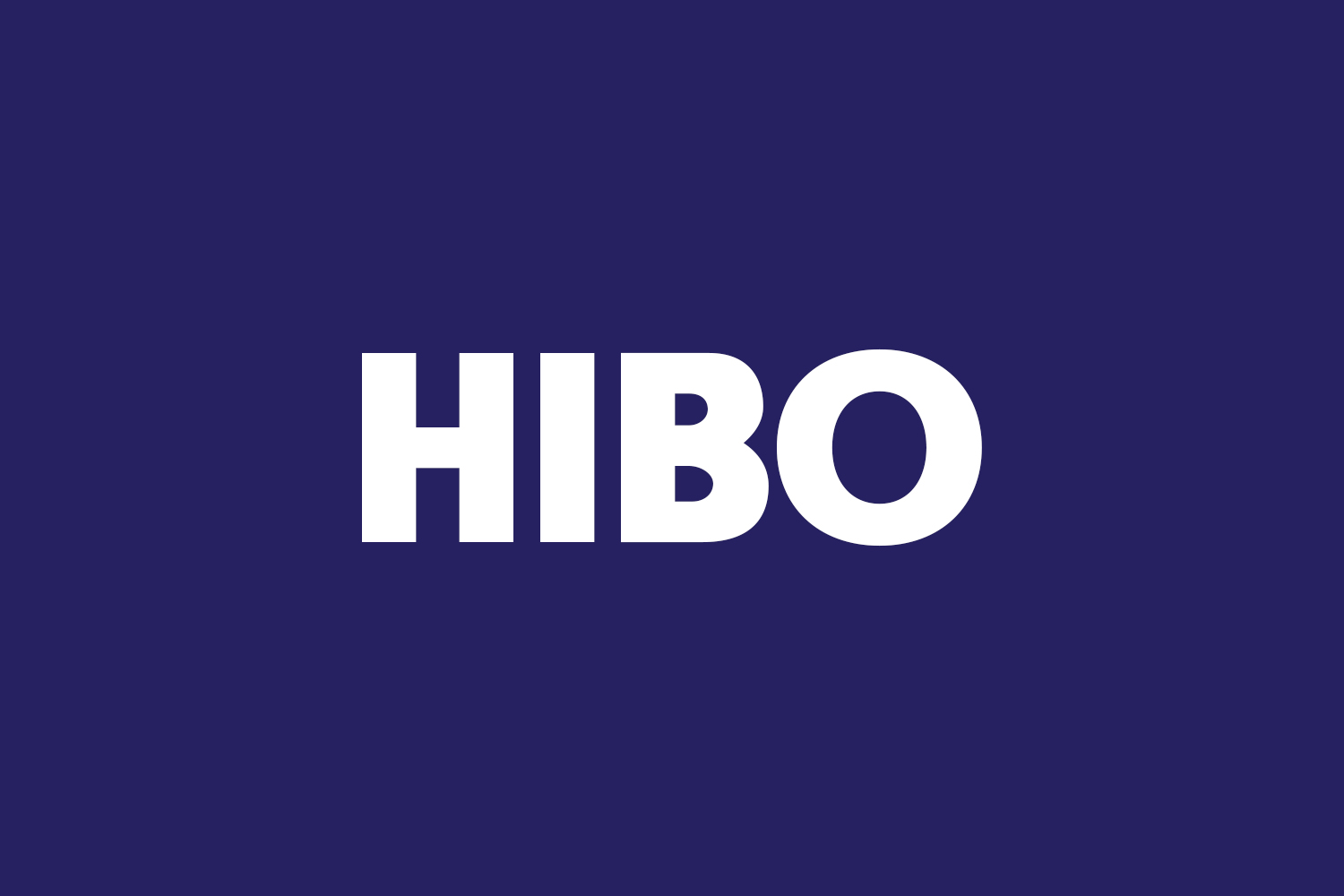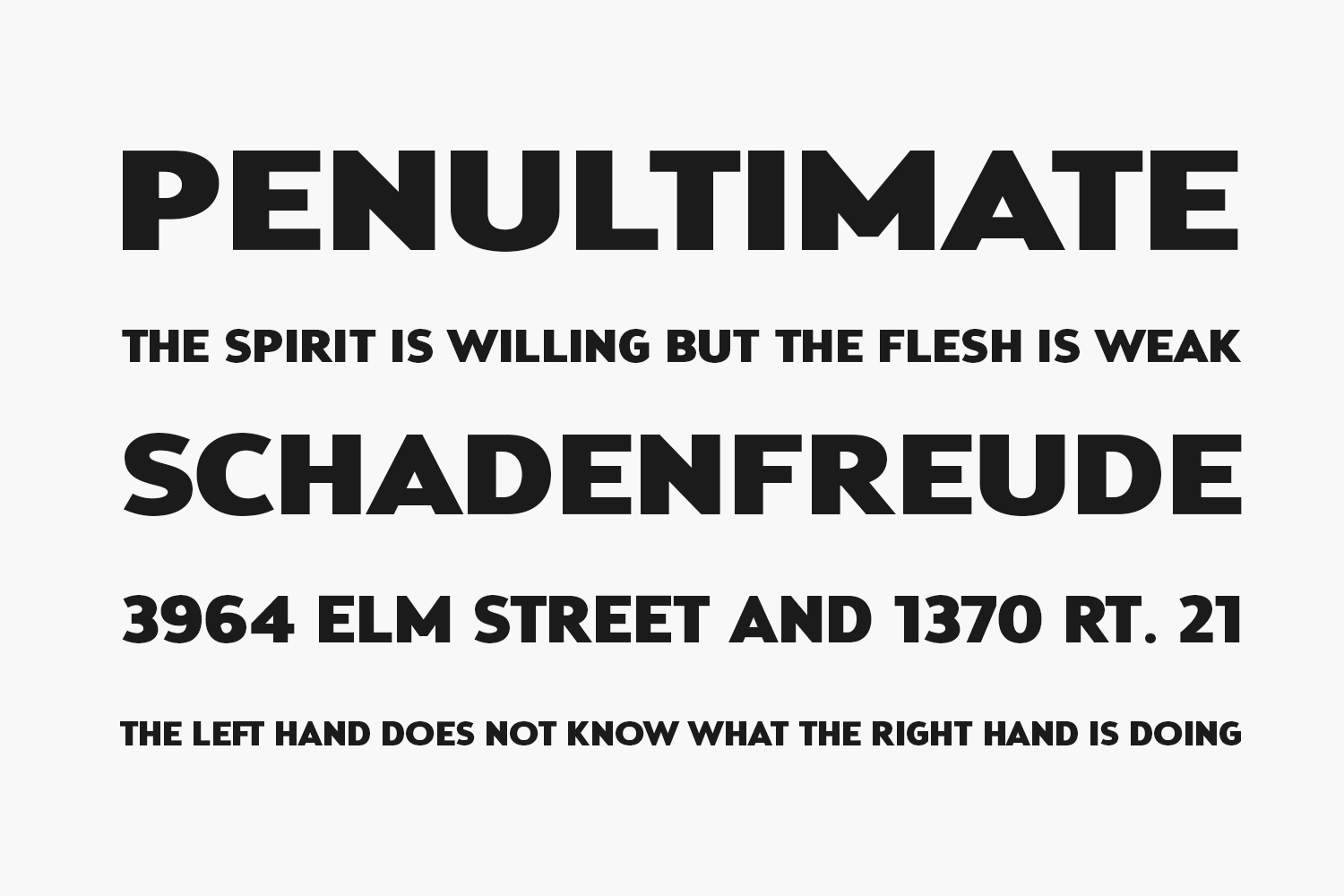
Hibo Free Font is a visually striking sans serif typeface that demands attention with its clean, modern lines and bold presence. Its minimalist design is balanced with just the right amount of personality, making it a versatile choice for a wide range of design projects. Whether used in headlines or body text, Hibo Free Font is sure to leave a lasting impression with its distinctive character and refined style. Hibo Free Font is free for personal use only. Please purchase the full version for commercial use.
Designed by Faqih Fawaji